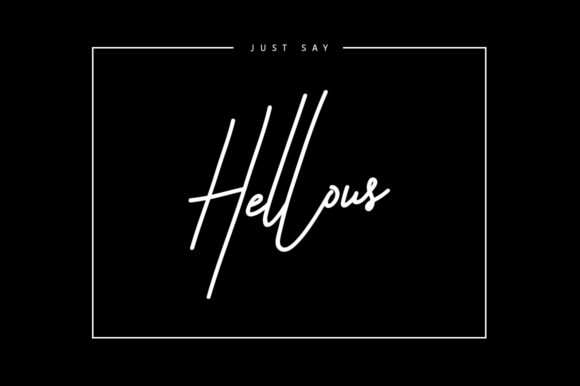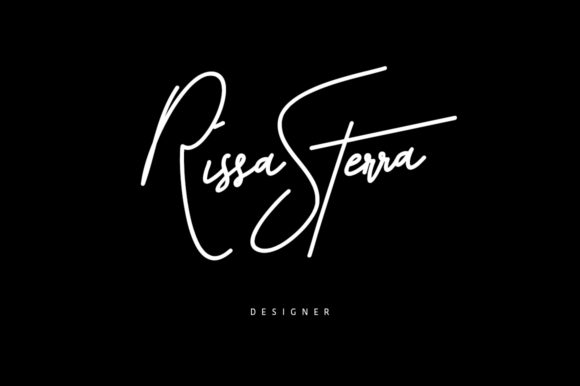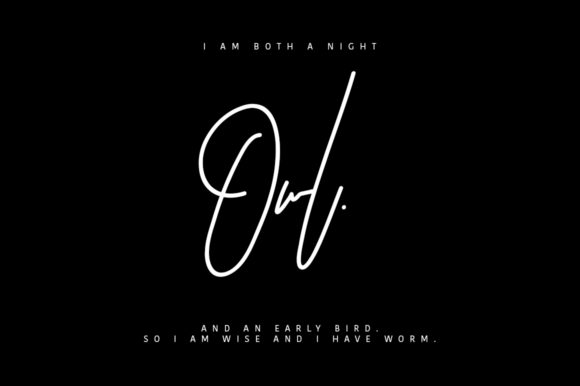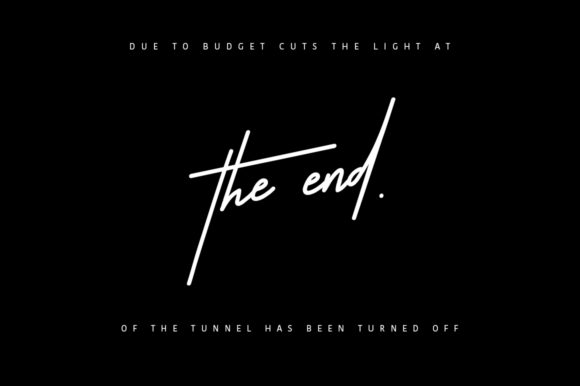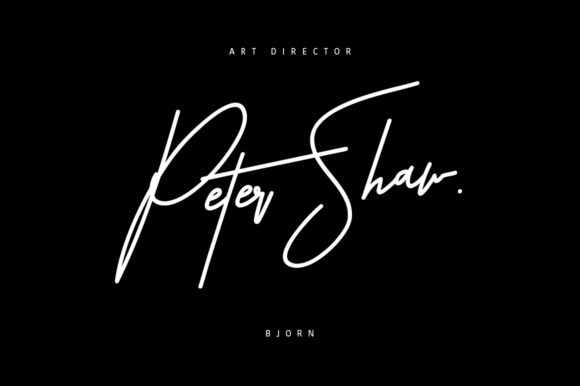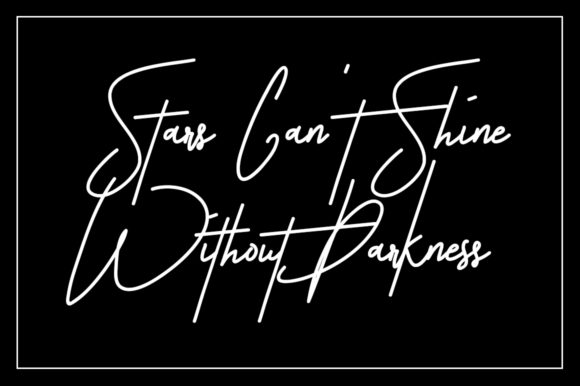
Astronout Font: The Ultimate Guide to this Delicate Handwritten Font
Are you a designer or crafter looking for a unique and versatile font to elevate your creative projects? Look no further than Astronout Font! This thin and delicate handwritten font is taking the design world by storm, and for good reason. In this comprehensive guide, we’ll dive into the world of Astronout Font and explore its features, uses, and benefits.
What is Astronout Font?
Astronout Font is a beautiful, handwritten font that is characterized by its thin and delicate lines. Its incredibly versatile style makes it perfect for a wide range of creative projects, from wedding invitations and stationary art to social media posts and more. Whether you’re a professional designer or a DIY crafter, Astronout Font is sure to inspire your next creative endeavor.
Features of Astronout Font
So, what makes Astronout Font so special? Here are just a few of its key features:
- Thin and delicate lines: Astronout Font is characterized by its elegant, cursive lines that are both thin and delicate.
- Handwritten style: This font has a warm, personal feel that’s perfect for creating unique and eye-catching designs.
- Versatile: Astronout Font can be used for a wide range of creative projects, from formal wedding invitations to playful social media posts.
- Elegant and sophisticated: This font has a timeless, elegant feel that’s sure to elevate any design.
Uses for Astronout Font
So, what can you use Astronout Font for? The possibilities are endless! Here are just a few ideas to get you started:
- Wedding invitations: Astronout Font is perfect for creating beautiful, elegant wedding invitations that will set the tone for your special day.
- Stationary art: Use Astronout Font to create gorgeous stationary art, including greeting cards, thank-you cards, and more.
- Social media posts: Add a touch of elegance to your social media posts with Astronout Font.
- Branding and packaging: This font is also perfect for creating elegant branding and packaging designs.
Benefits of Using Astronout Font
So, why should you choose Astronout Font for your next creative project? Here are just a few benefits:
- Unique and eye-catching: Astronout Font is a unique and eye-catching font that’s sure to make your designs stand out.
- Easy to read: Despite its delicate lines, Astronout Font is easy to read, even at small sizes.
- Versatile: This font can be used for a wide range of creative projects, making it a great addition to any designer’s toolkit.
- Timeless: Astronout Font has a timeless, elegant feel that’s sure to remain stylish for years to come.
Tips for Using Astronout Font
Here are a few tips for getting the most out of Astronout Font:
- Use it sparingly: Astronout Font is a delicate font, so use it sparingly to avoid overwhelming your design.
- Pair it with bold fonts: Pair Astronout Font with bold fonts to create a striking contrast.
- Experiment with colors: Astronout Font looks great in a range of colors, so don’t be afraid to experiment.
- Pay attention to spacing: Make sure to pay attention to spacing when using Astronout Font, as it can affect the overall look and feel of your design.
In conclusion, Astronout Font is a beautiful, delicate handwritten font that’s perfect for designers and crafters looking to elevate their creative projects. With its incredibly versatile style, elegant lines, and timeless feel, Astronout Font is sure to inspire your next creative endeavor. Whether you’re creating wedding invitations, stationary art, social media posts, or more, Astronout Font is a great choice.